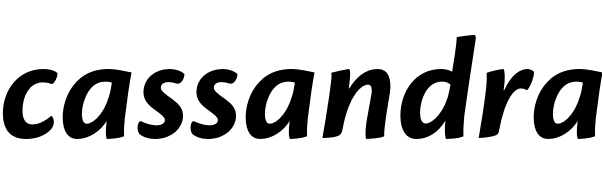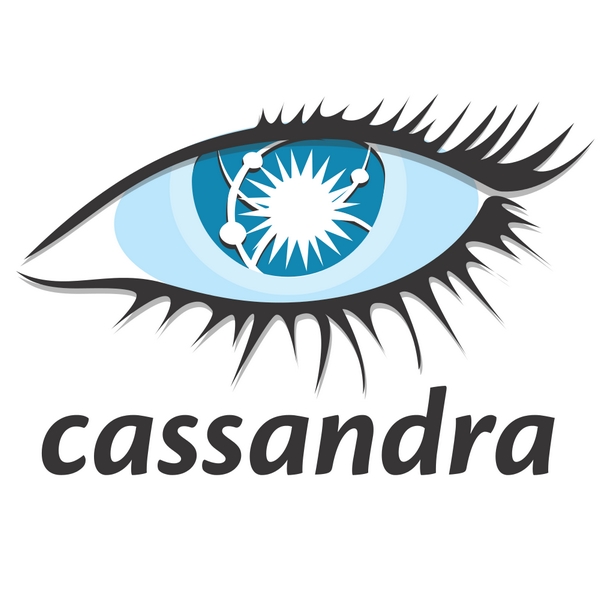
Cassandra Font
Fonts in UseApache Cassandra is a highly scalable and distributed NoSQL database system designed to handle large amounts of data across multiple servers, providing high availability and fault tolerance.
The logo of Cassandra most likely utilizes the Cronos Bold Italic font, a sans serif typeface designed by Adobe's Robert Slimbach. Additional information about the typeface can be found here.